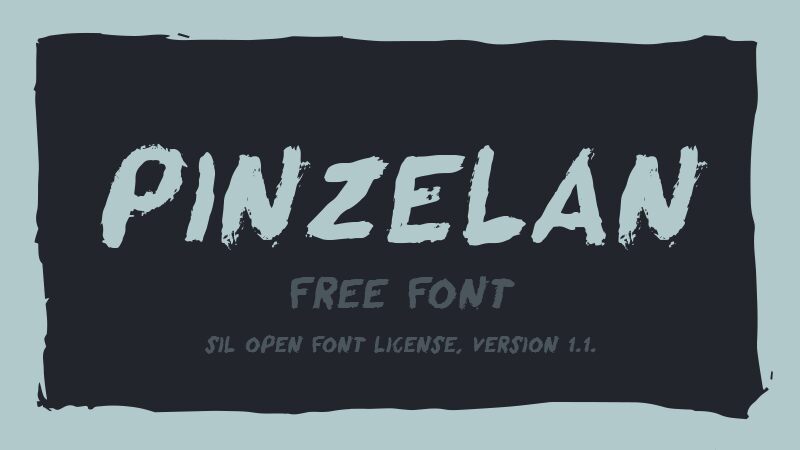
Pinzelan font, designed by GGBotNet, captivates with its striking brush style that exudes a sense of spontaneity and flair. This font showcases bold strokes, creating an impactful presence that commands attention. Its dynamic character forms are marked by fluid curves and dramatic slashes, evoking a sense of artistry and creative expression.
Visually appealing, Pinzelan's expansive structure enhances legibility while maintaining a playful charm. Ideal for vibrant branding projects, artistic posters, or expressive headlines, this font breathes life into any design. Whether used in digital media or print, its unique characteristics make it perfect for conveying energy and emotion in various contexts. Embrace the artful spirit of Pinzelan to elevate your visual storytelling.